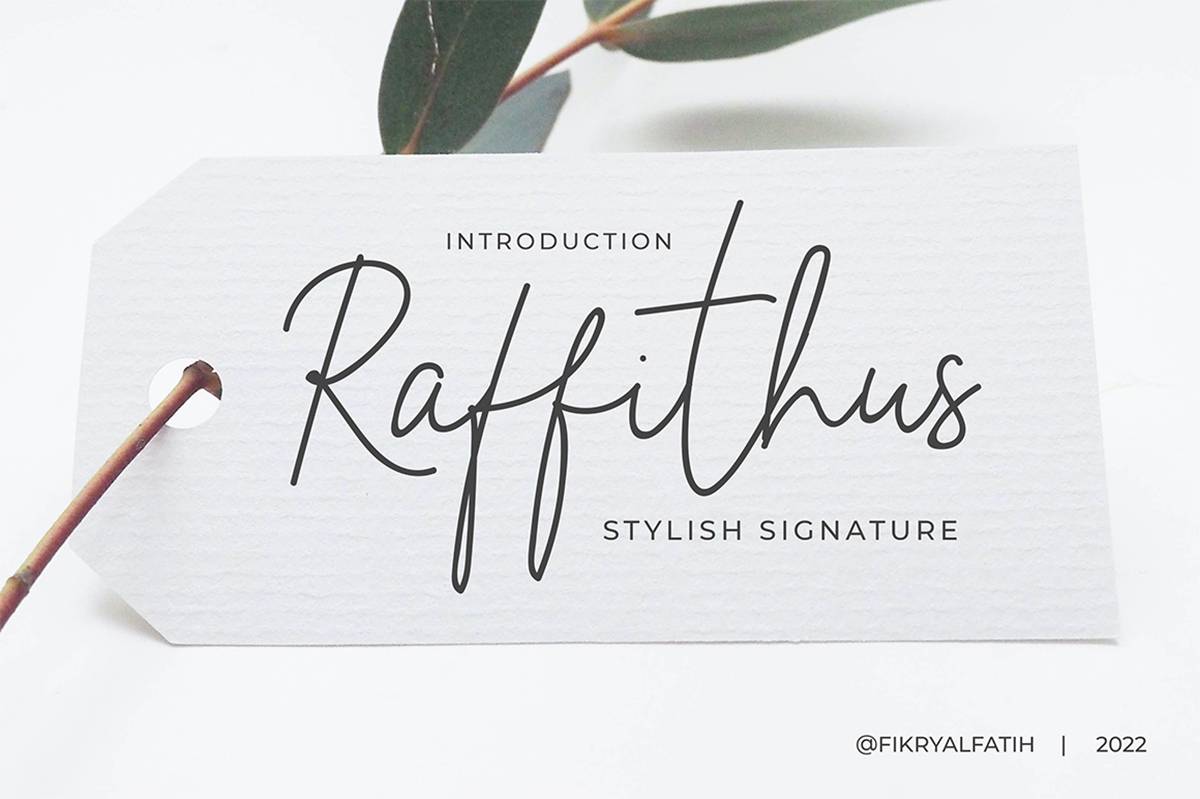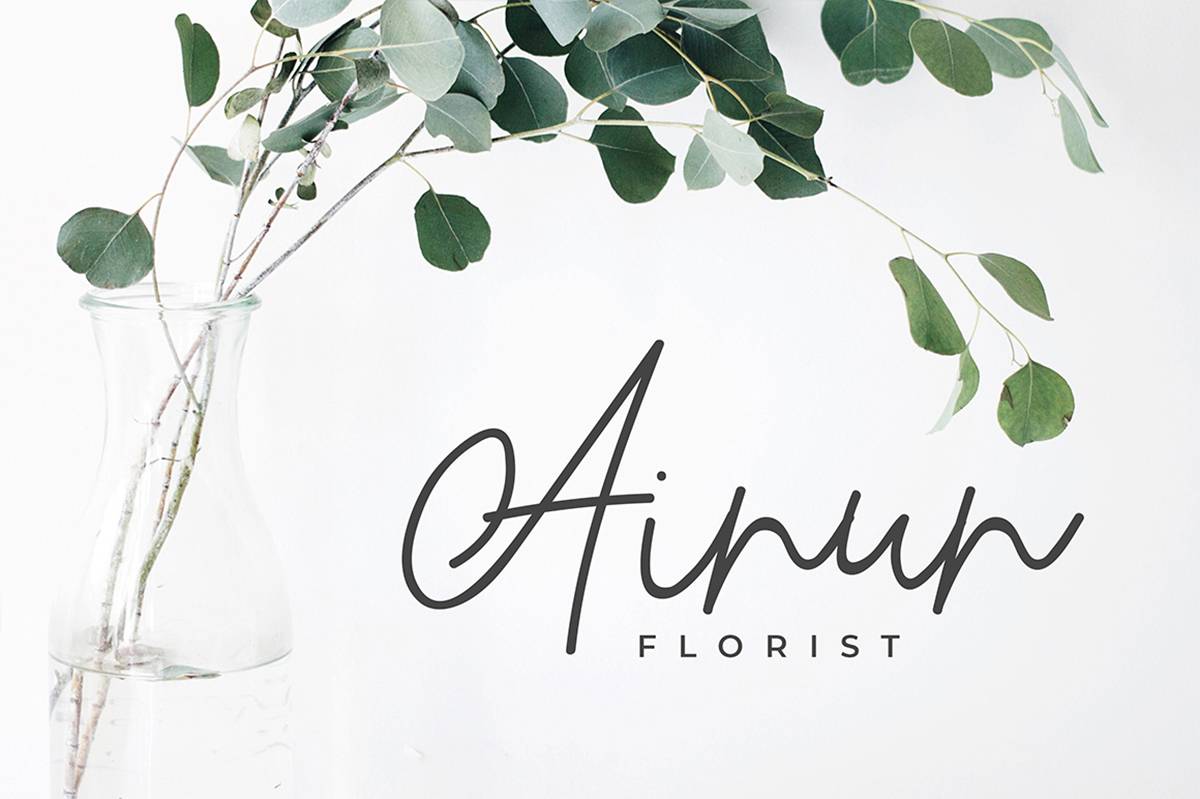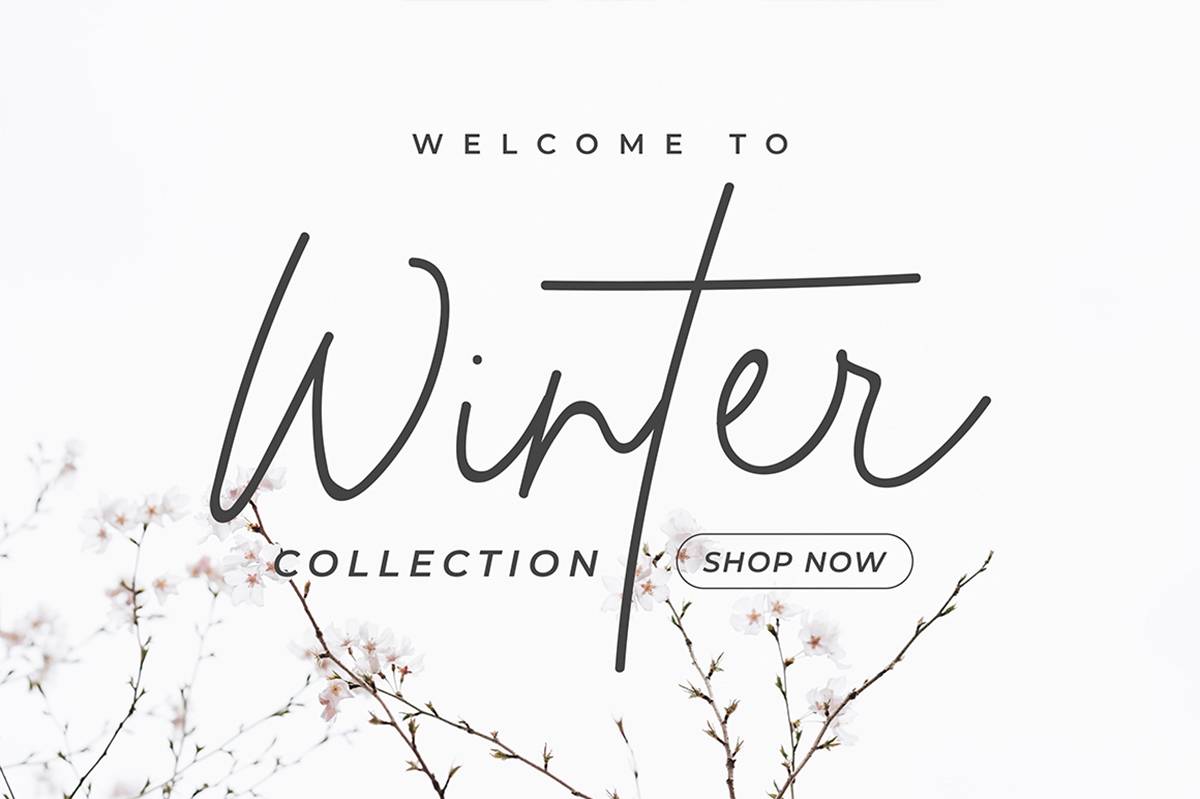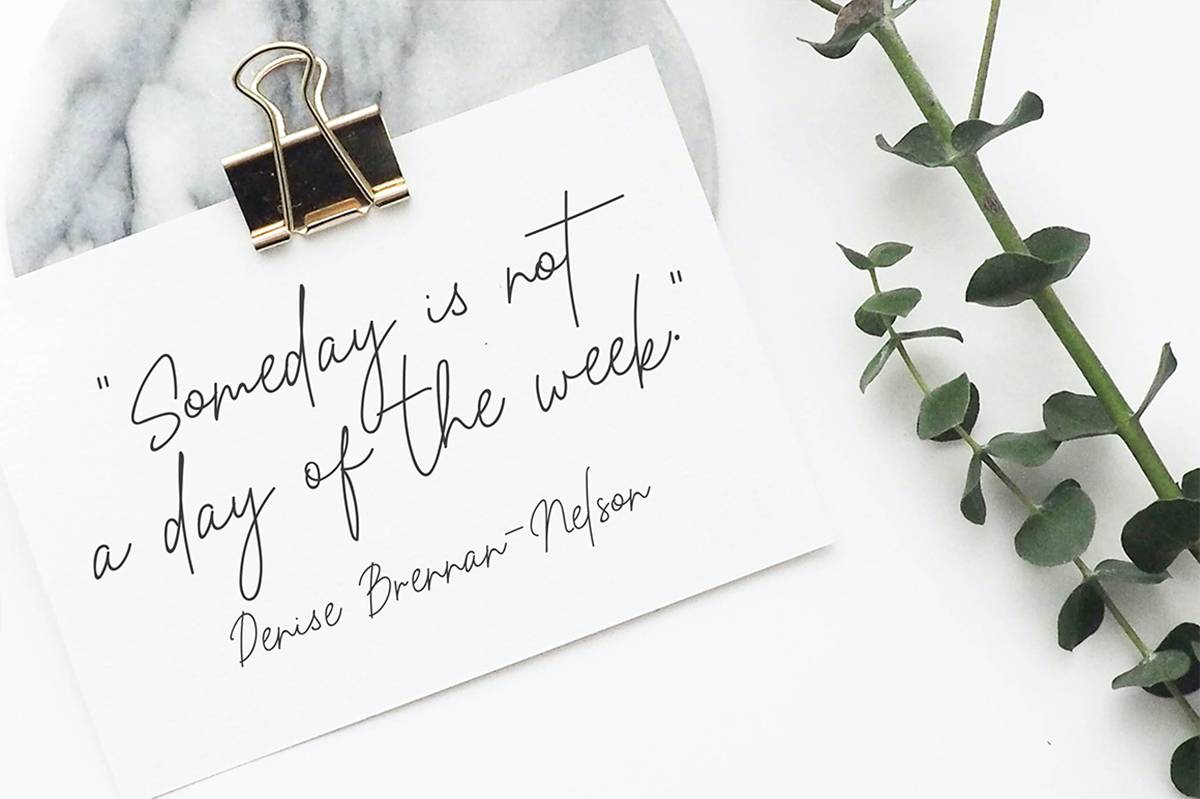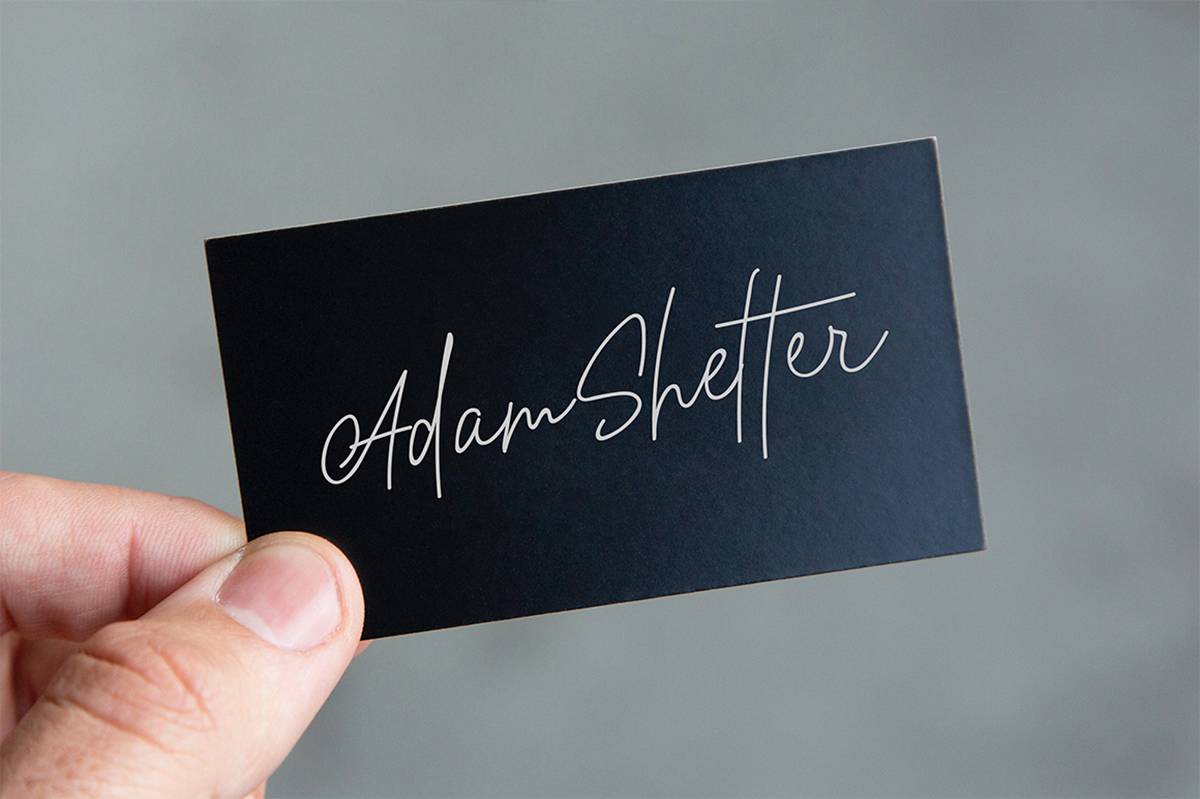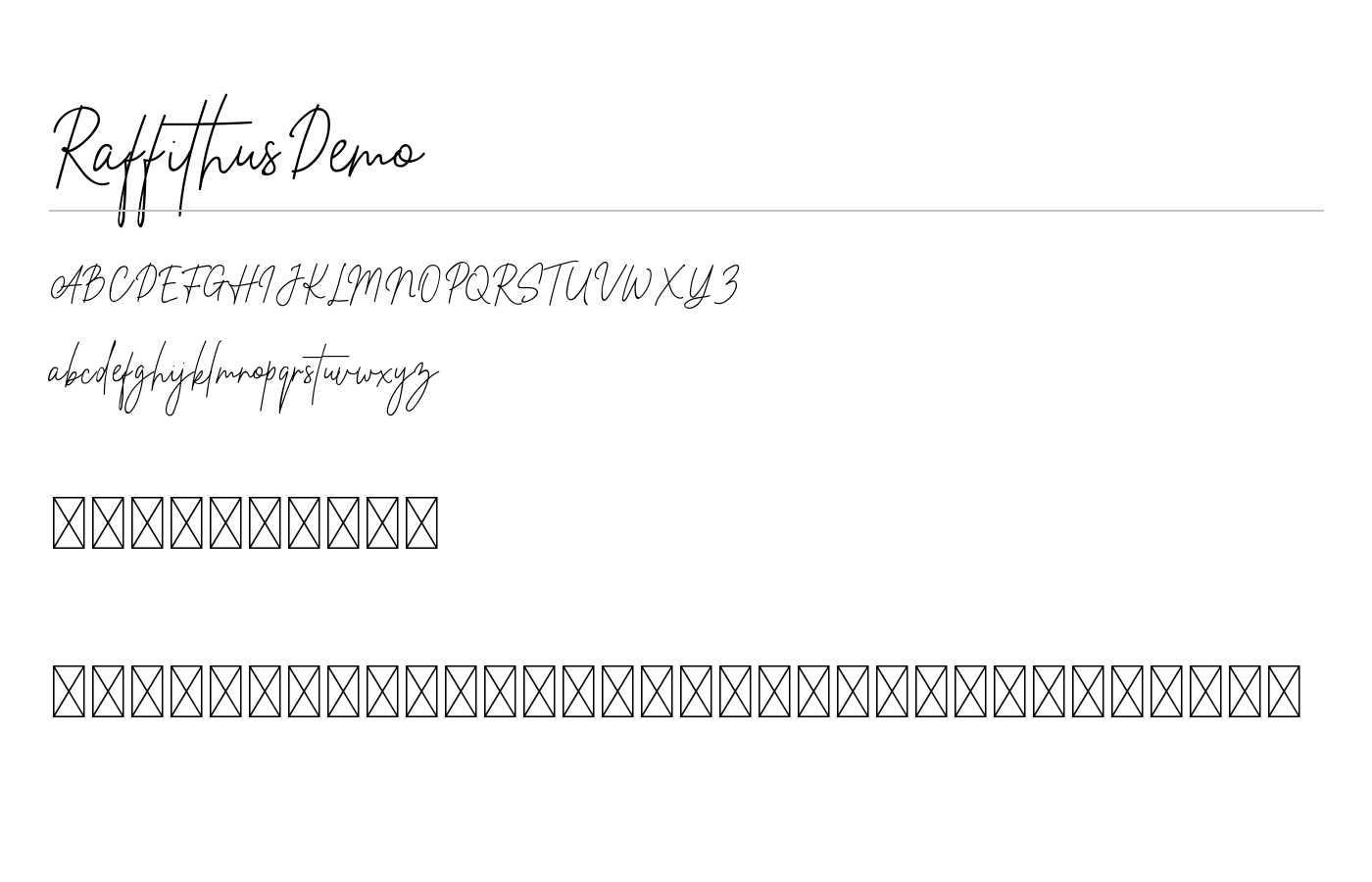
Raffithus Signature Font is a delicate and elegant handwritten script that mimics a natural, flowing signature style. Its thin, flowing lines and tall, narrow letterforms convey a personal and sophisticated feel, making it perfect for branding, invitations, and luxury design projects that seek a touch of refined individuality. This font works beautifully in headlines and logos where a stylish, modern, yet intimate look is desired.
Raffithus Signature Font
About Raffithus Signature Font
| Font family | Raffithus Signature Font |